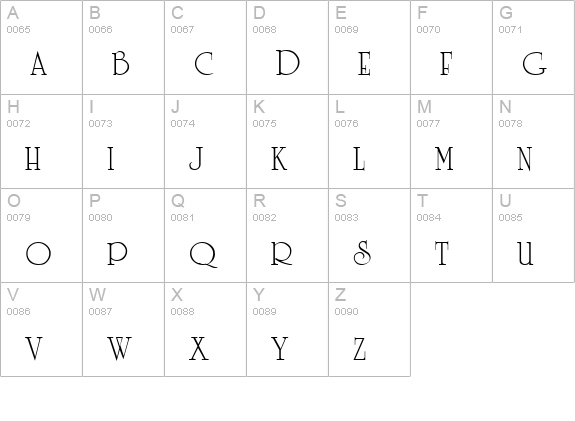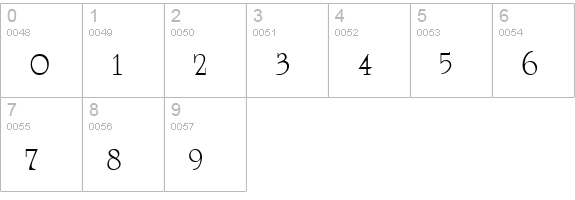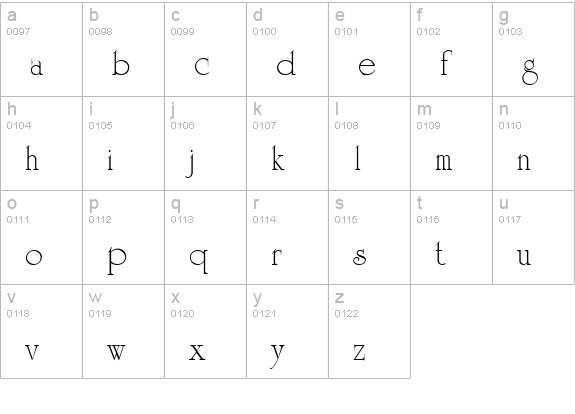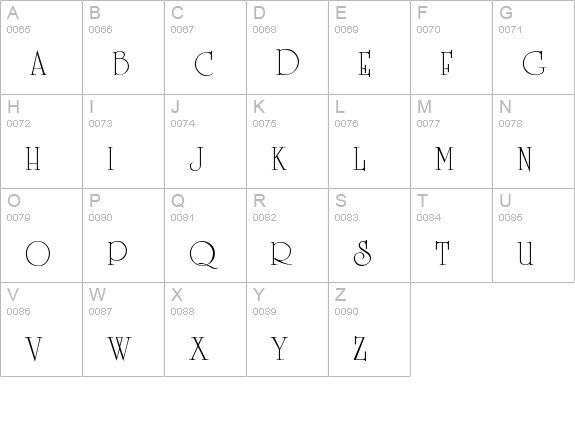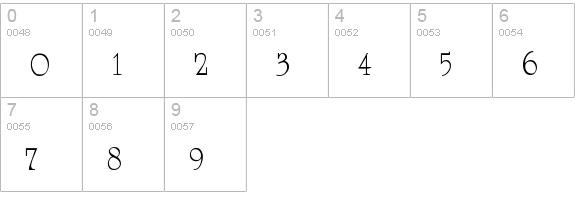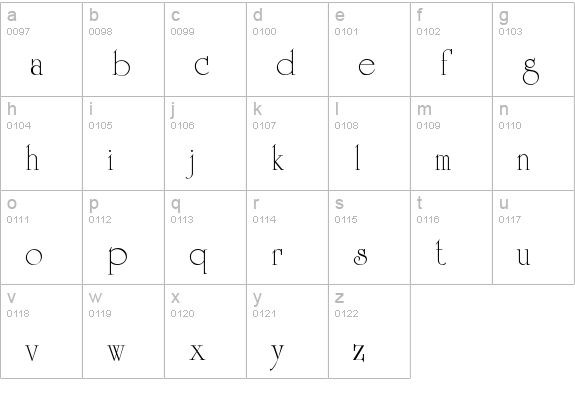
Salinas Font Details
Salinas font is a beautifully crafted typeface that exudes elegance and sophistication. With its sleek lines and graceful curves, Salinas is perfect for adding a touch of class to any design project. This versatile font is ideal for a wide range of applications, from branding to editorial design. What makes Salinas even more appealing is that it is available for free download at FontsMarket.com. Yes, you read that right - this stunning font can be yours at no cost! So why wait? Elevate your designs with Salinas font today and make a lasting impression.